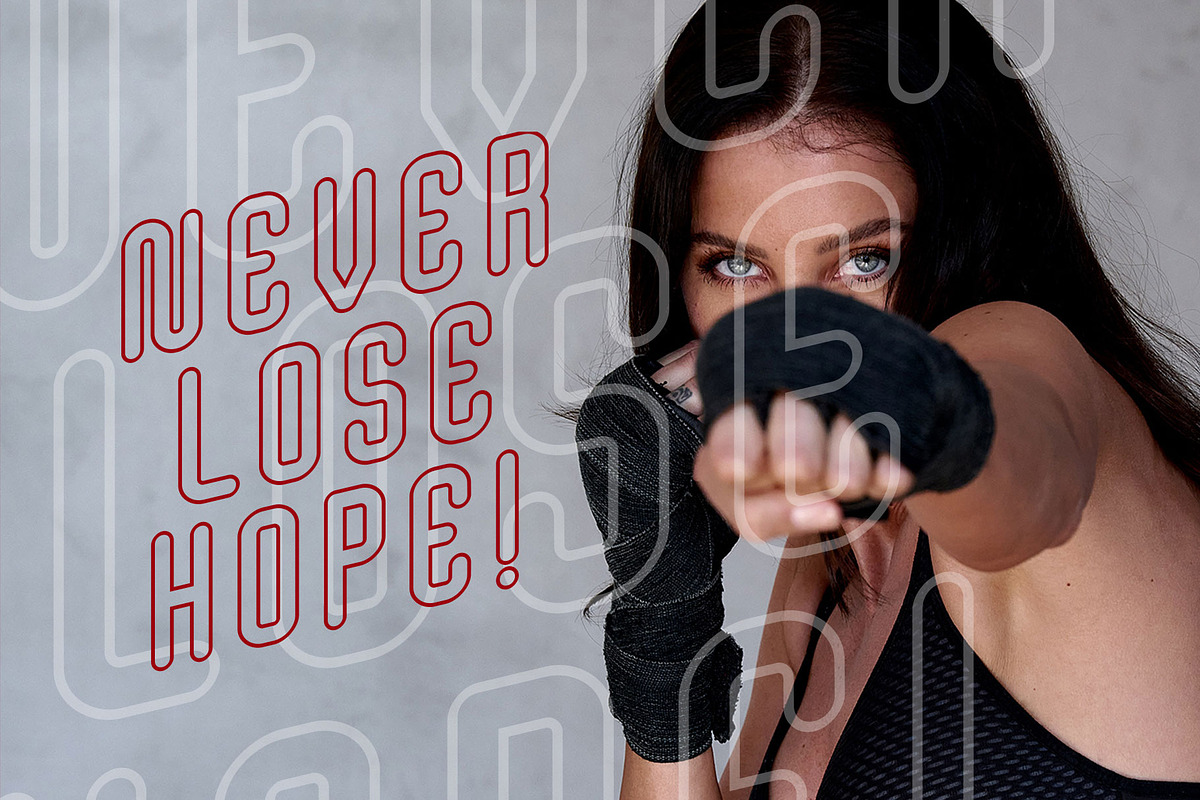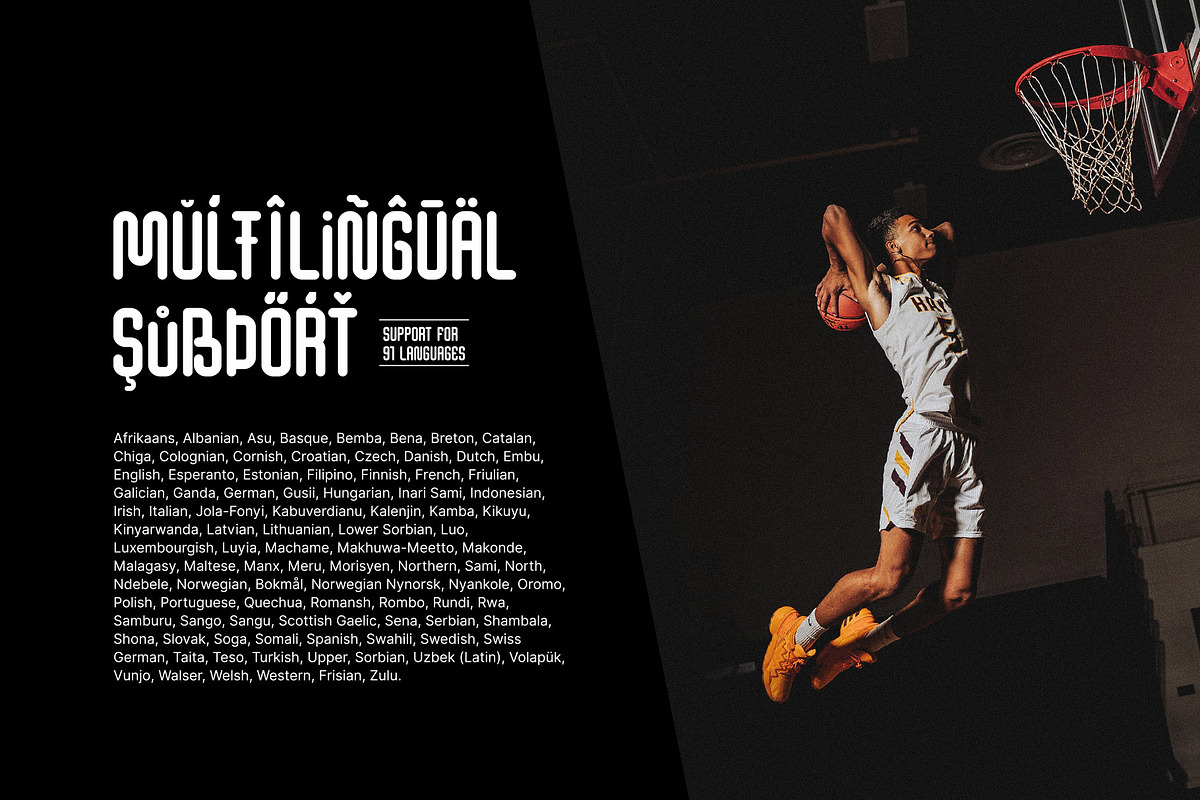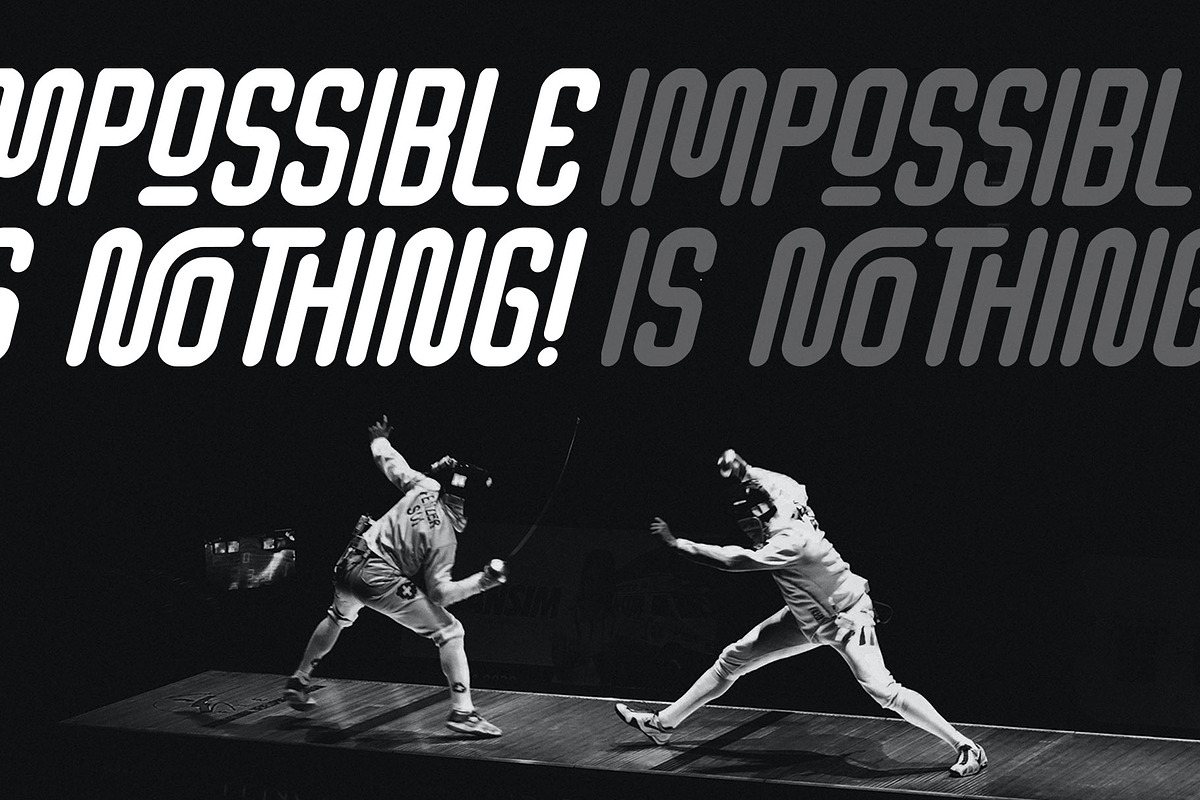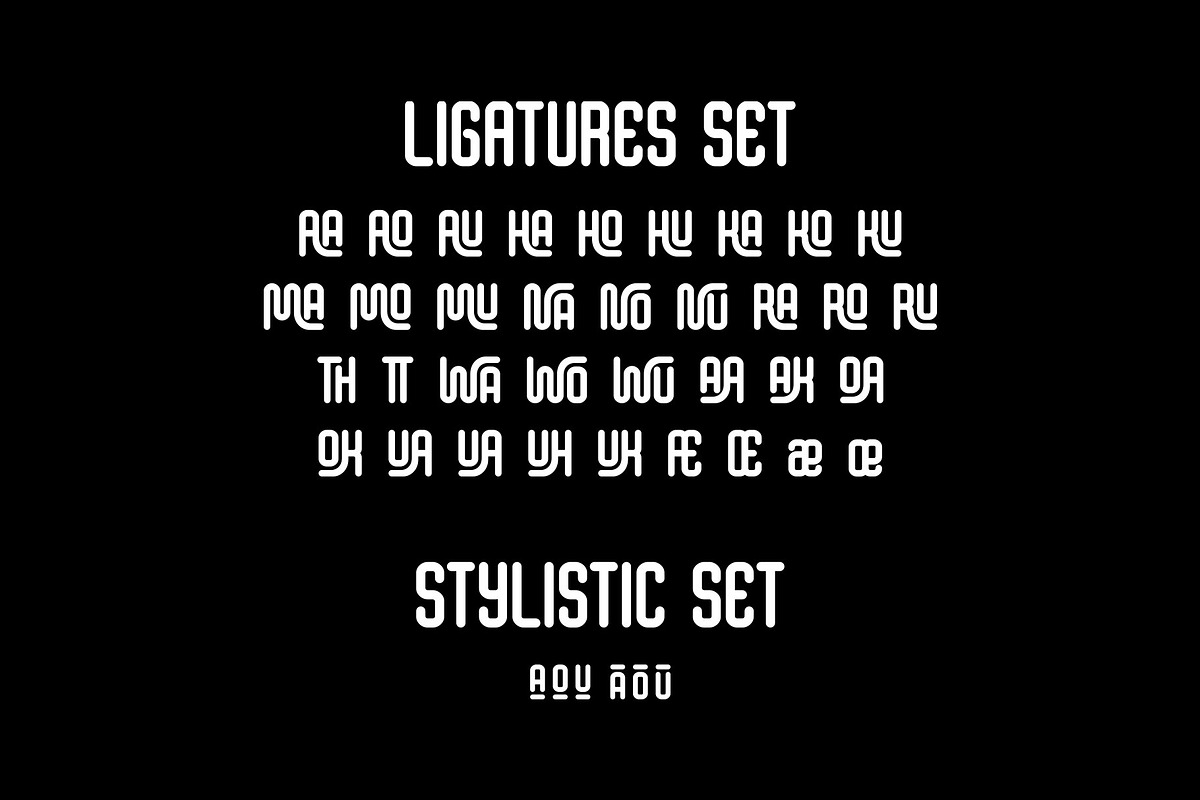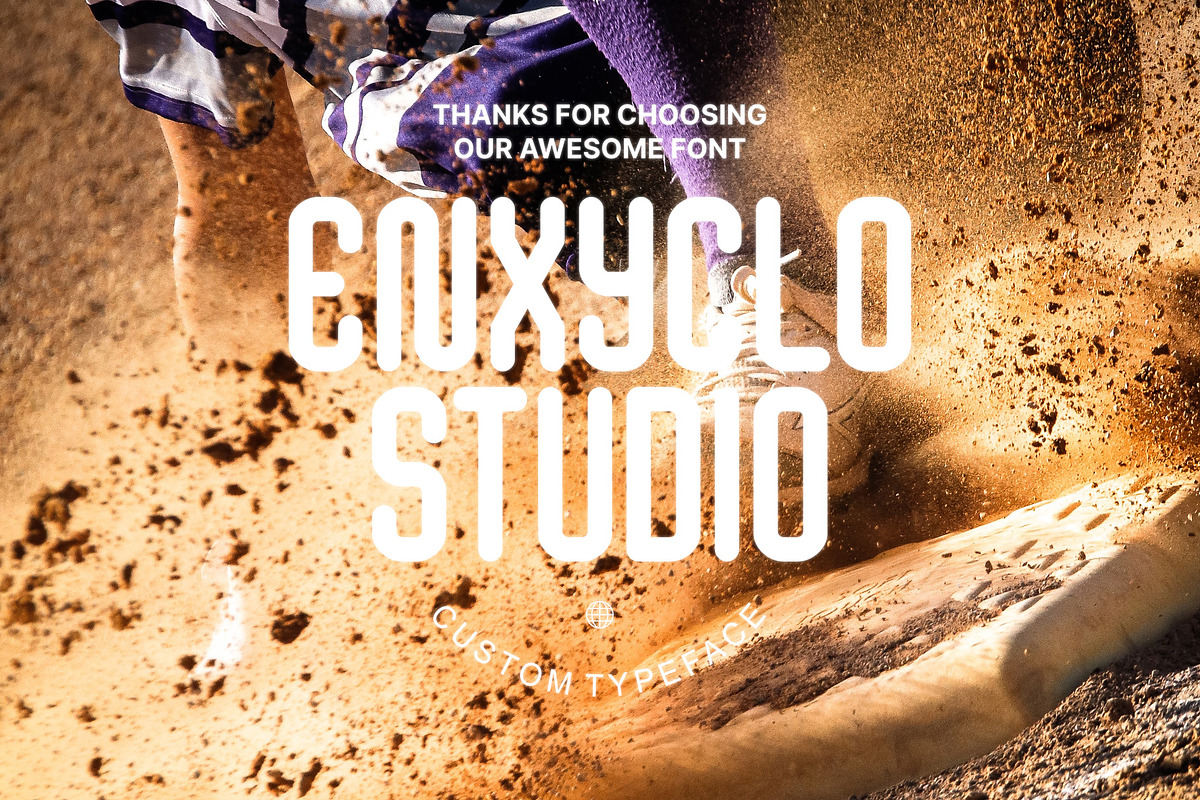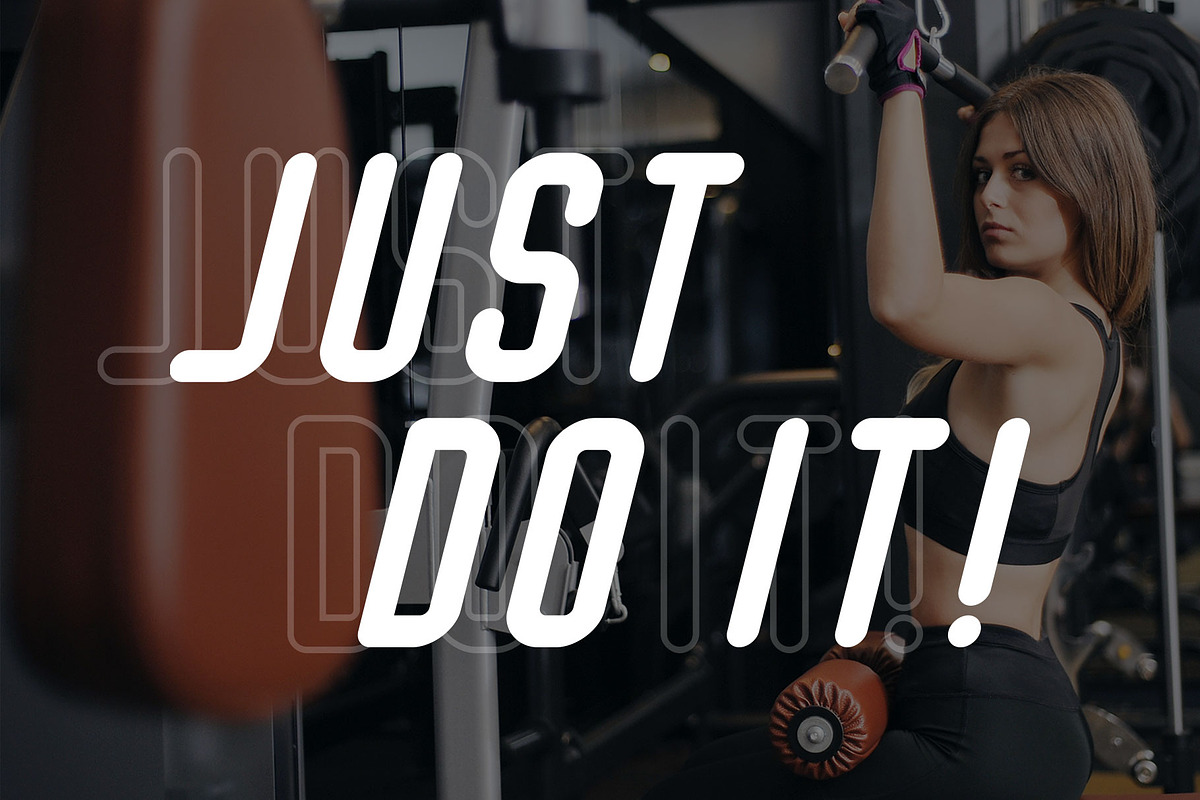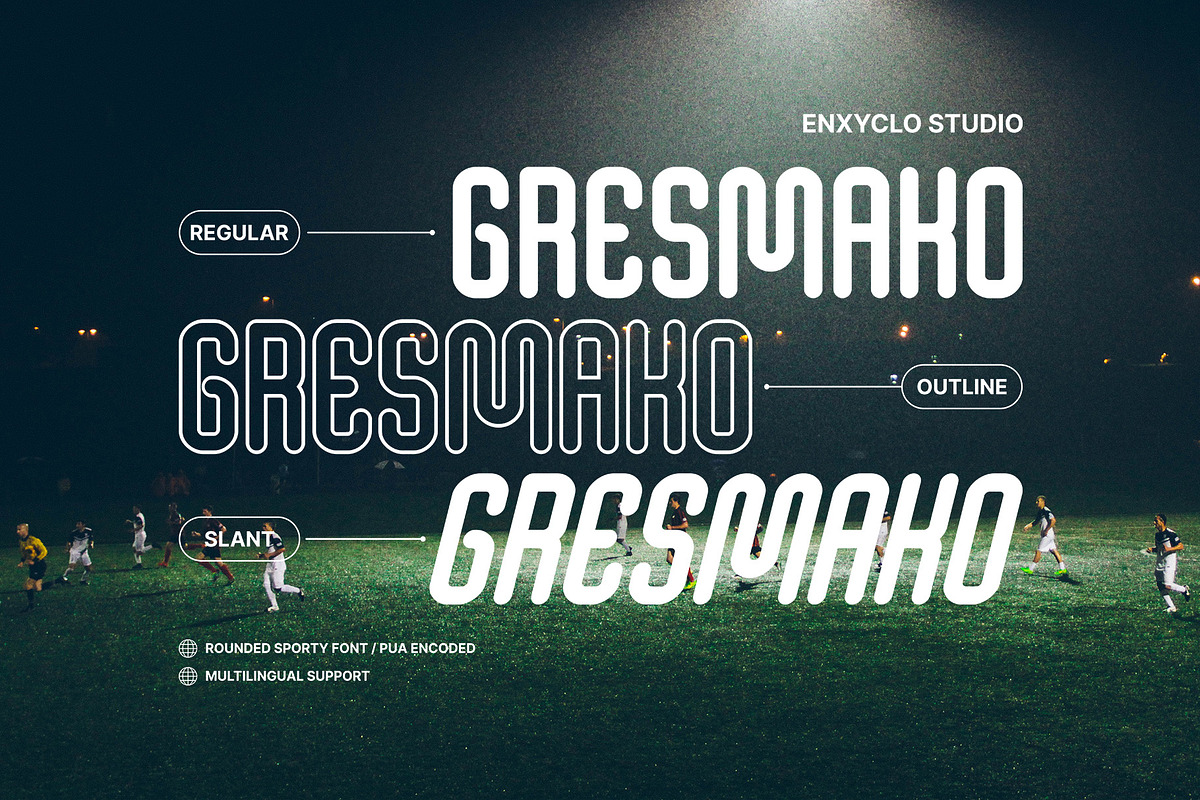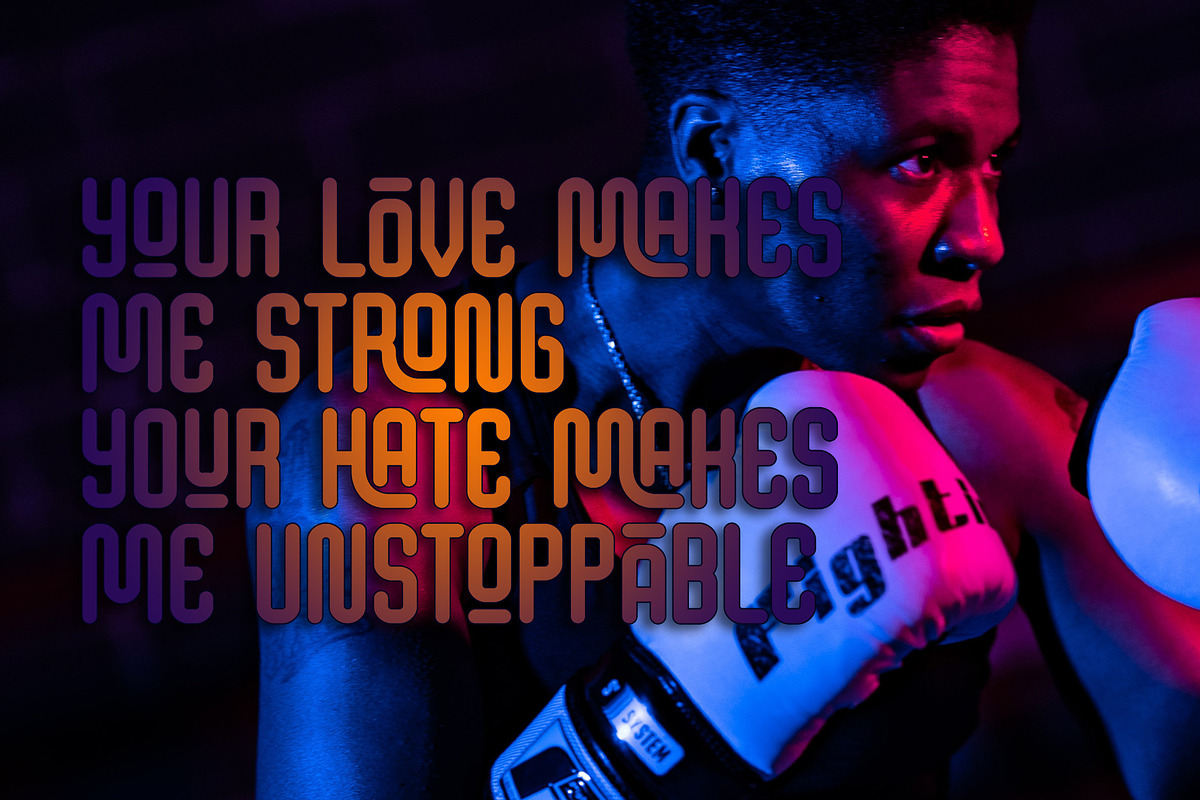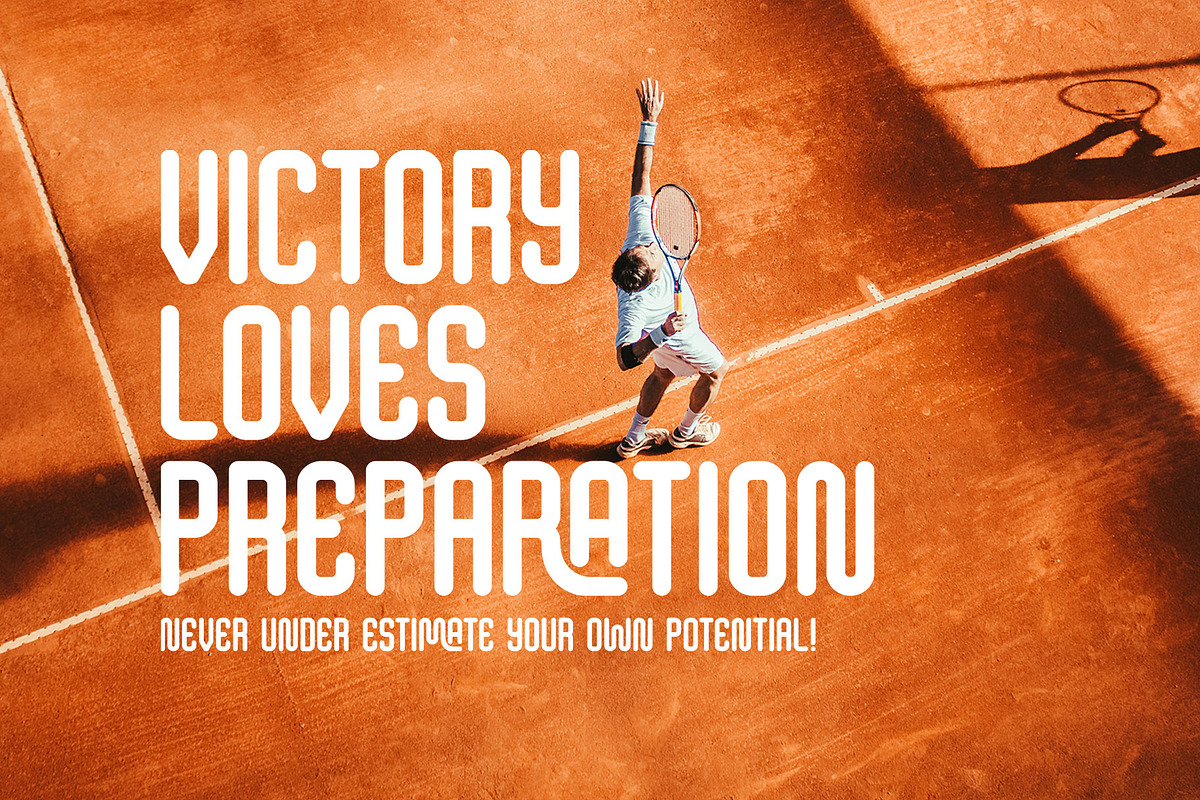
GRESMAKO - Rounded Sporty Font
GRESMAKO is a rounded sporty font. It was purposely crafted to be used in large point sizes, although it doesn't lose its magic in small point sizes. With this rounded sporty typeface, you can be even more expressive in your design projects. It is perfect for headline, billboard, magazines, website, titles, poster, branding, and logos. With this beautiful font, absolutely you can make your project stand out from the rest. See the previews above to get some inspiration on how to use them.
- 3 Styles: Regular, Outline & Slant
- Contains 383 Glyphs for Each Style (Total: 1.149 Glyphs)
- Uppercase, Lowercase, Numeral, Punctuation & Symbol
- Multilingual Support. Support for 91 Languages: Afrikaans, Albanian, Asu, Basque, Bemba, Bena, Breton, Catalan, Chiga, Colognian, Cornish, Croatian, Czech, Danish, Dutch, Embu, English, Esperanto, Estonian, Filipino, Finnish, French, Friulian, Galician, Ganda, German, Gusii, Hungarian, Inari Sami, Indonesian, Irish, Italian, Jola-Fonyi, Kabuverdianu, Kalenjin, Kamba, Kikuyu, Kinyarwanda, Latvian, Lithuanian, Lower, Sorbian, Luo, Luxembourgish, Luyia, Machame, Makhuwa-Meetto, Makonde, Malagasy, Maltese, Manx, Meru, Morisyen, Northern Sami, North Ndebele, Norwegian, Bokmål, Norwegian, Nynorsk, Nyankole, Oromo, Polish, Portuguese, Quechua, Romansh, Rombo, Rundi, Rwa, Samburu, Sango, Sangu, Scottish, Gaelic, Sena, Serbian, Shambala, Shona, Slovak, Soga, Somali, Spanish, Swahili, Swedish, Swiss German, Taita, Teso, Turkish, Upper, Sorbian, Uzbek (Latin), Volapük, Vunjo, Walser, Welsh, Western, Frisian, Zulu.